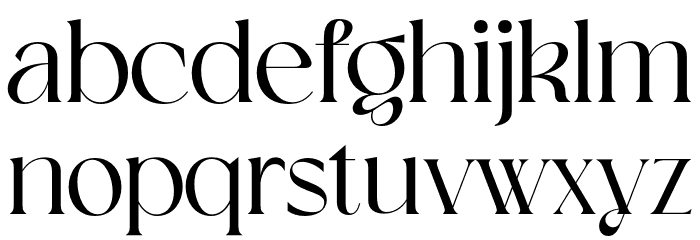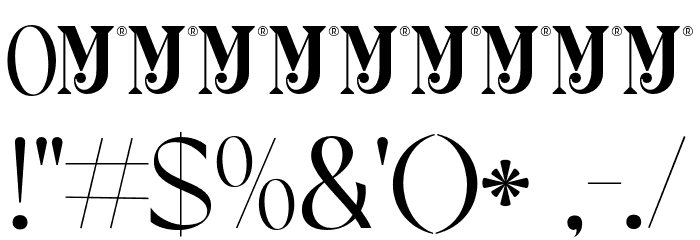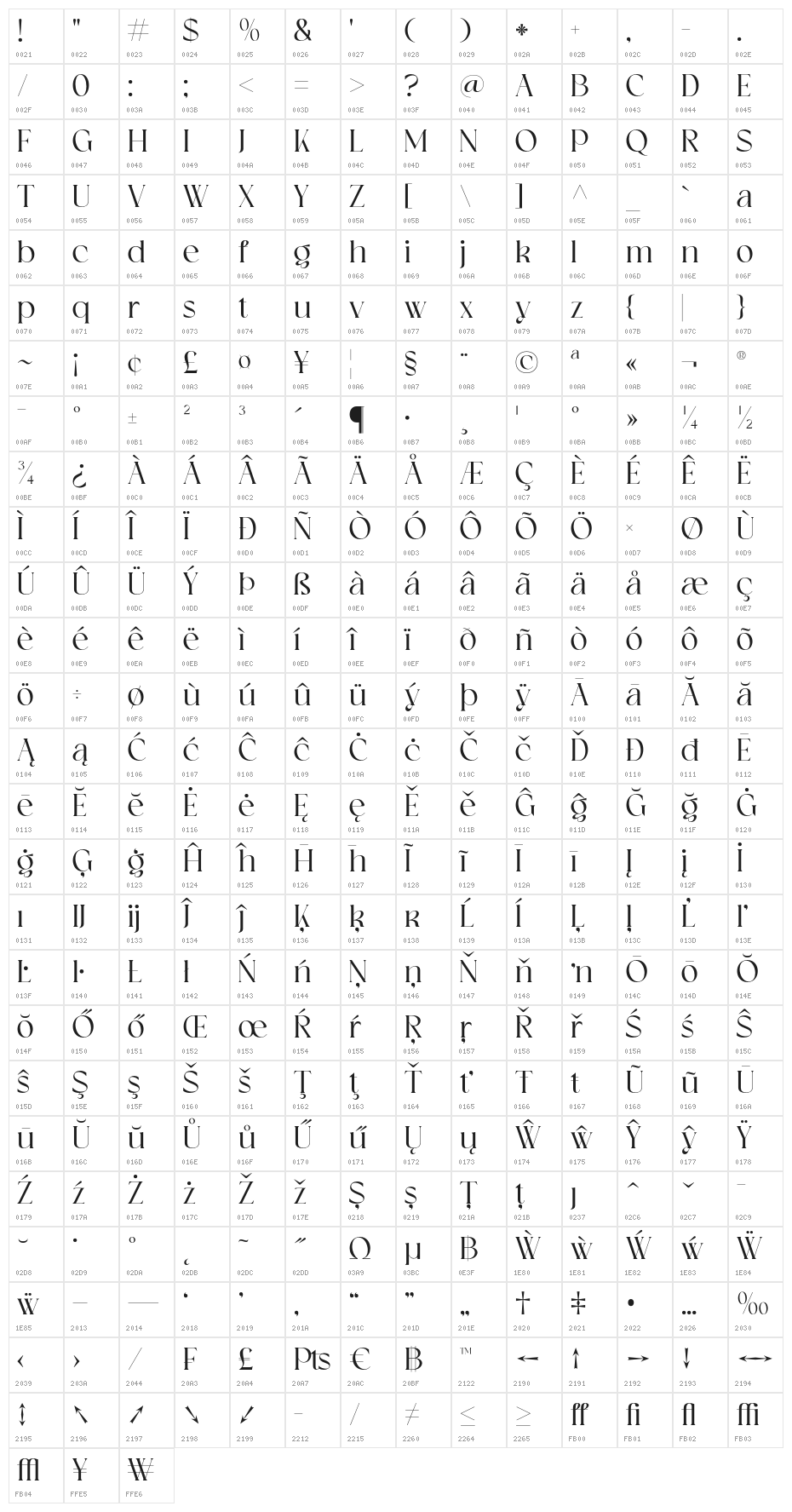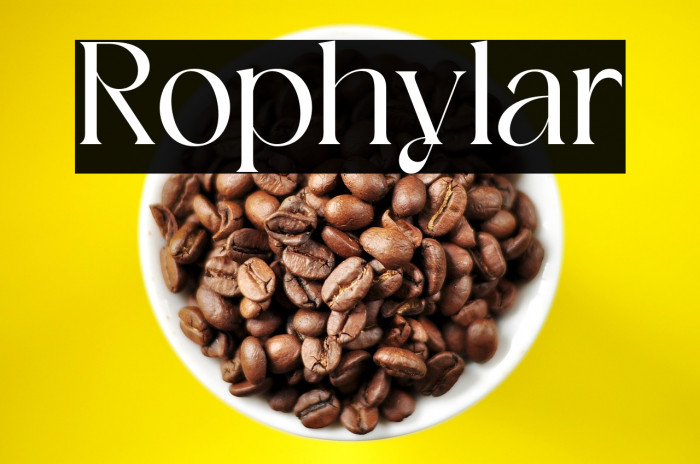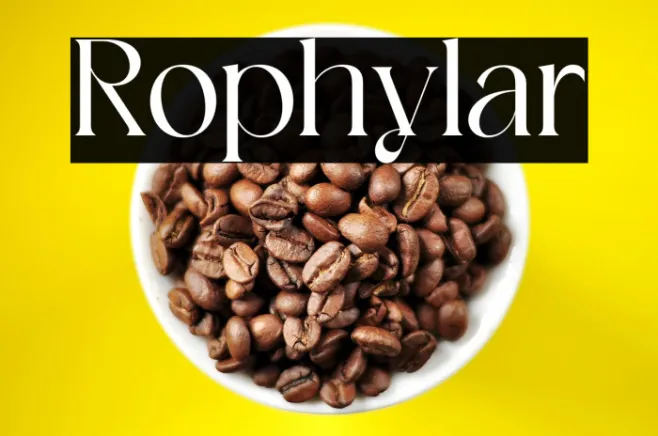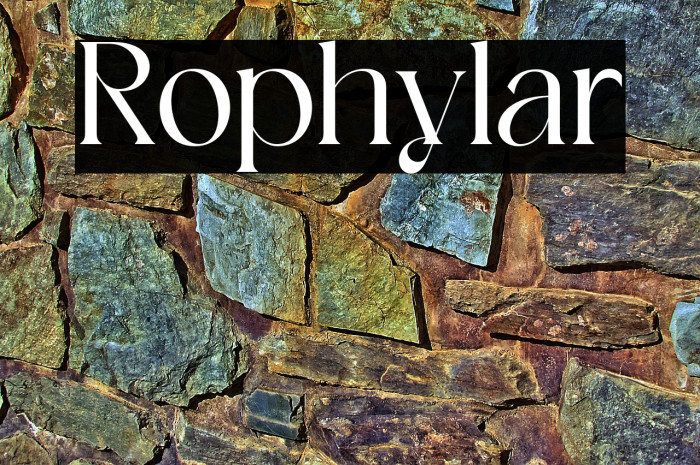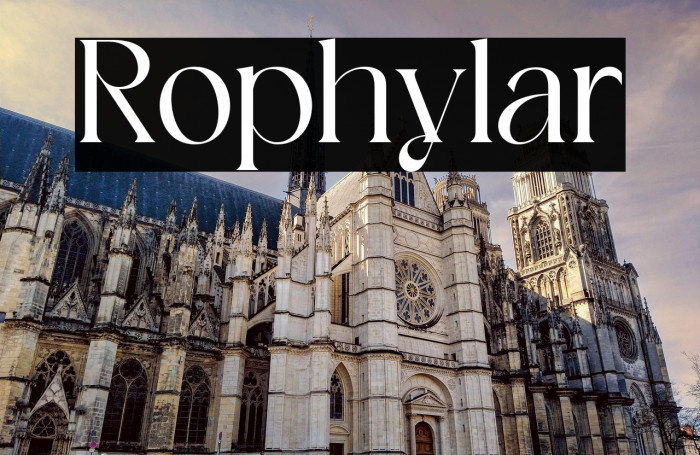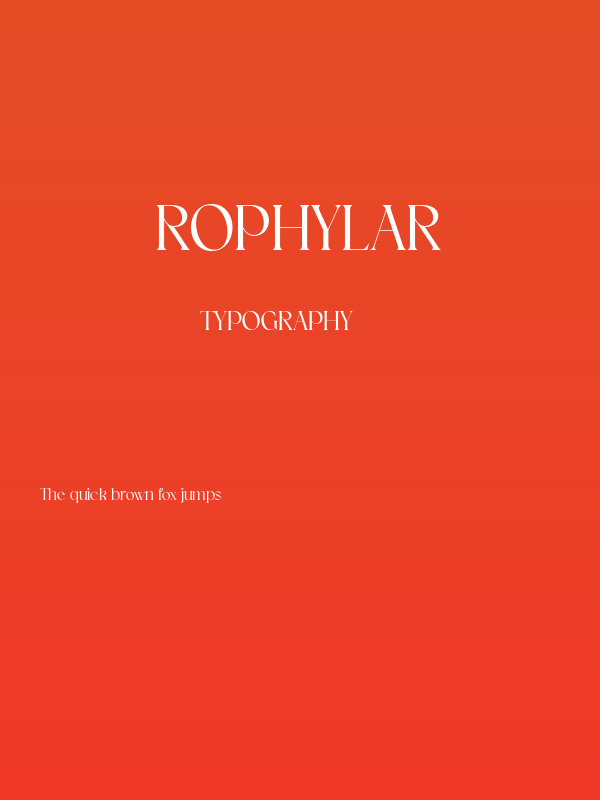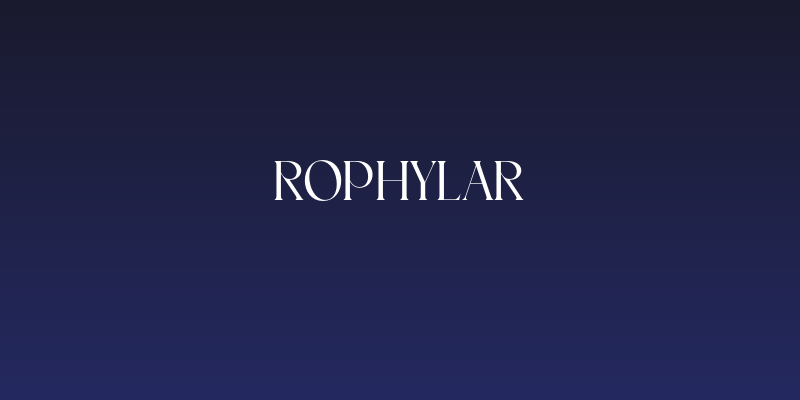
Rophylar Font
This font features a sophisticated and elegant design with high contrast between thick and thin strokes, giving it a refined and stylish appearance. The uppercase letters are tall and slender, while the lowercase letters maintain a consistent flow with subtle curves. The serifs are pronounced, adding a classic touch to the overall modern aesthetic. The numerals and special characters are designed to complement the letterforms, maintaining the same level of elegance and clarity. This font is suitable for projects that require a touch of sophistication and class.
An elegant serif font with high contrast and refined design.
- Font: Rophylar
- Proposed Projects: Ideal for luxury branding, editorial design, invitations, and high-end product packaging.
- Category: Serif
- Use Case: Headlines, Logos, Editorial design